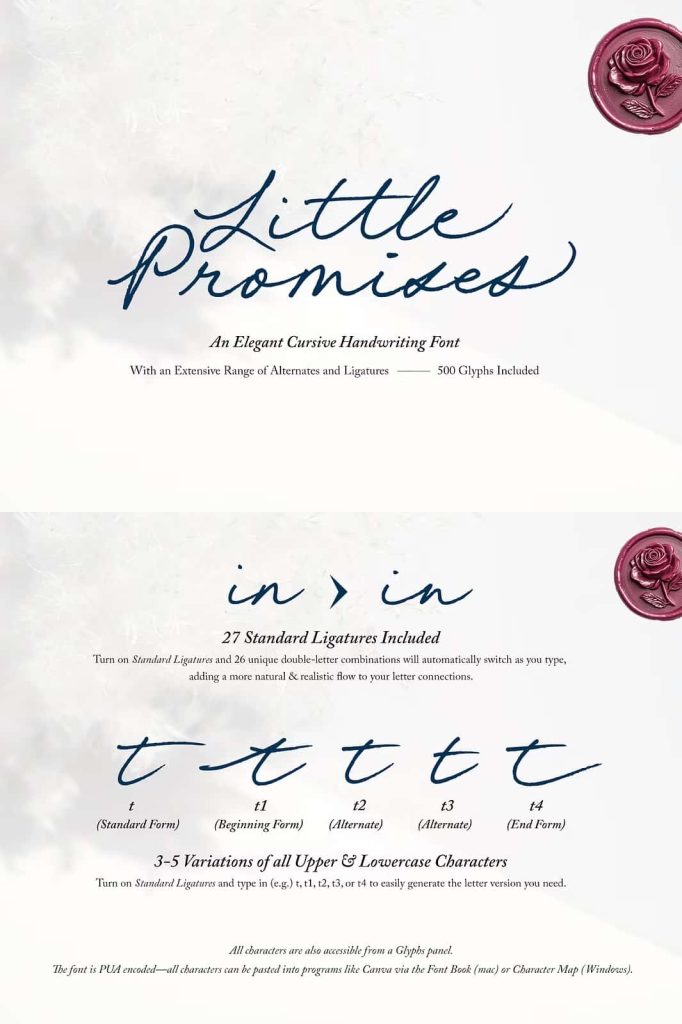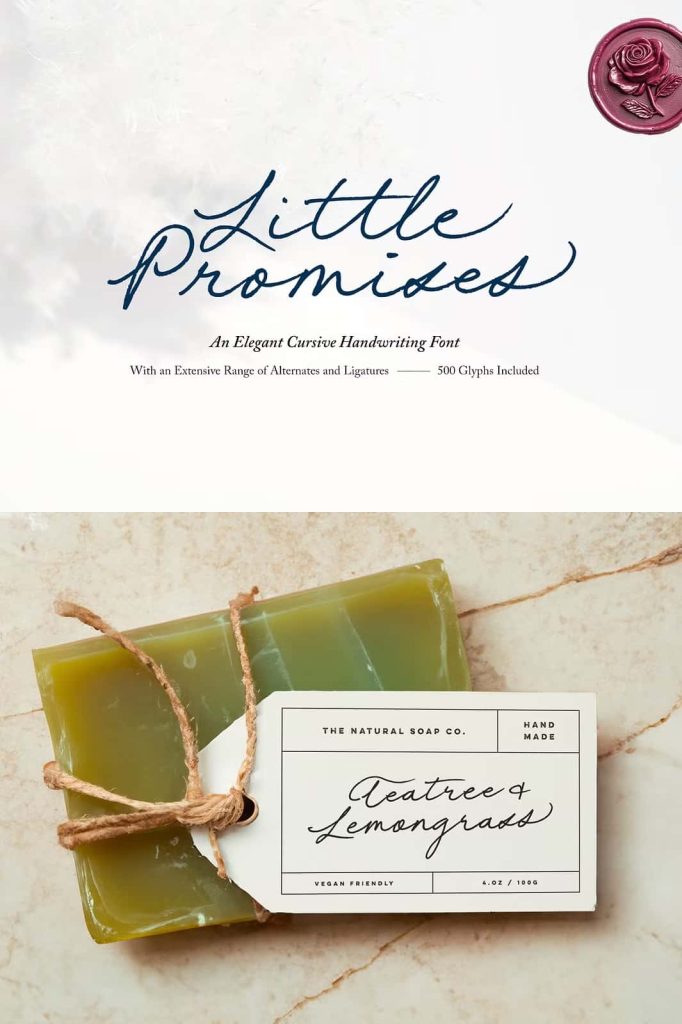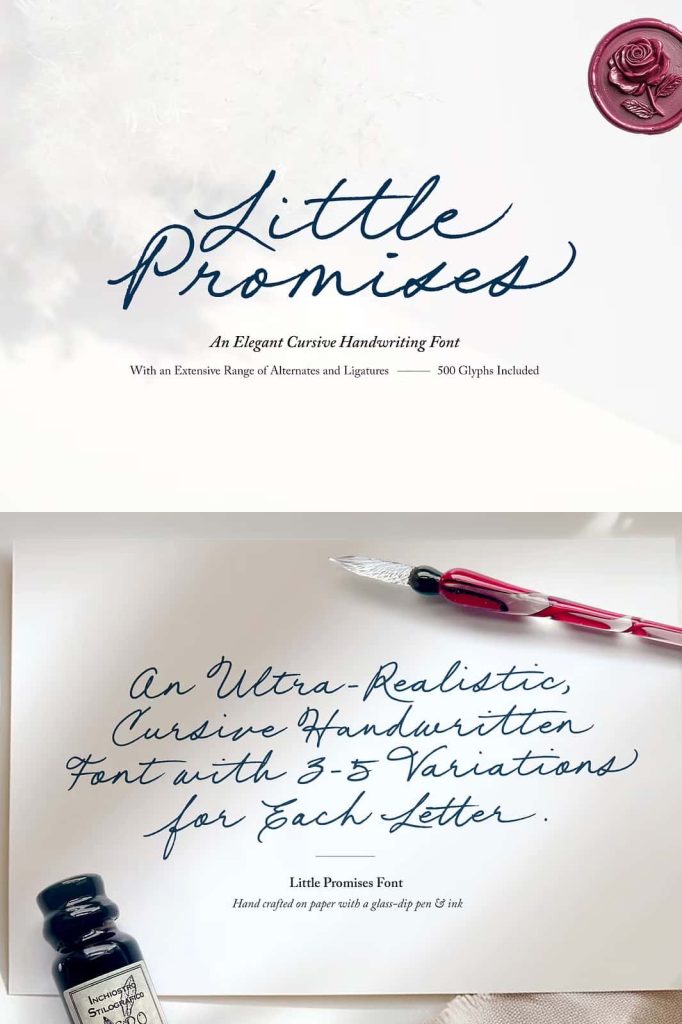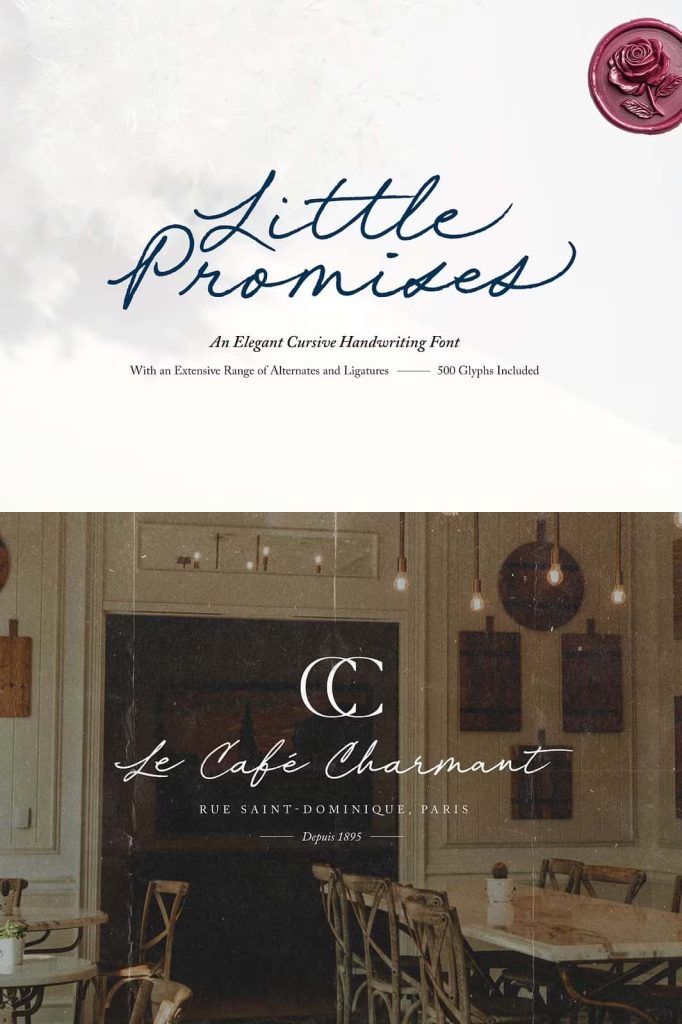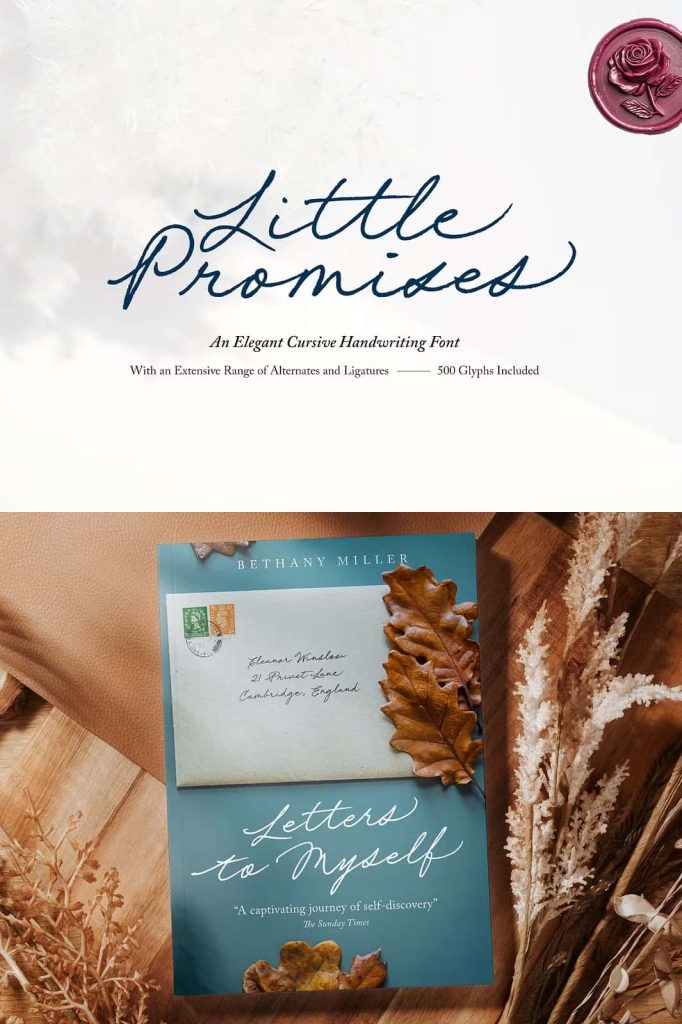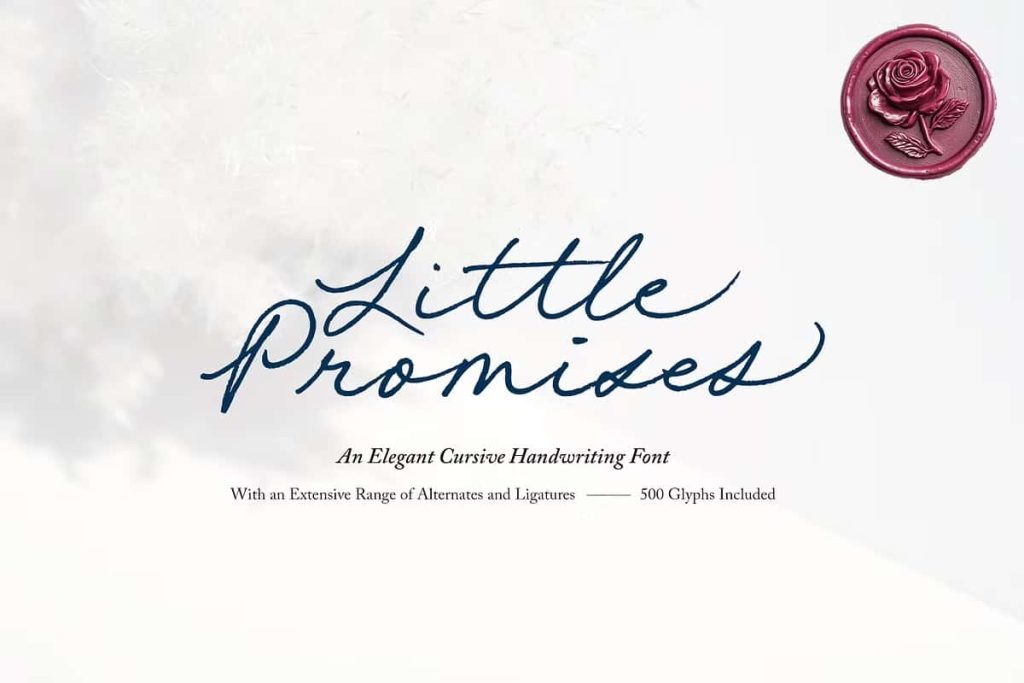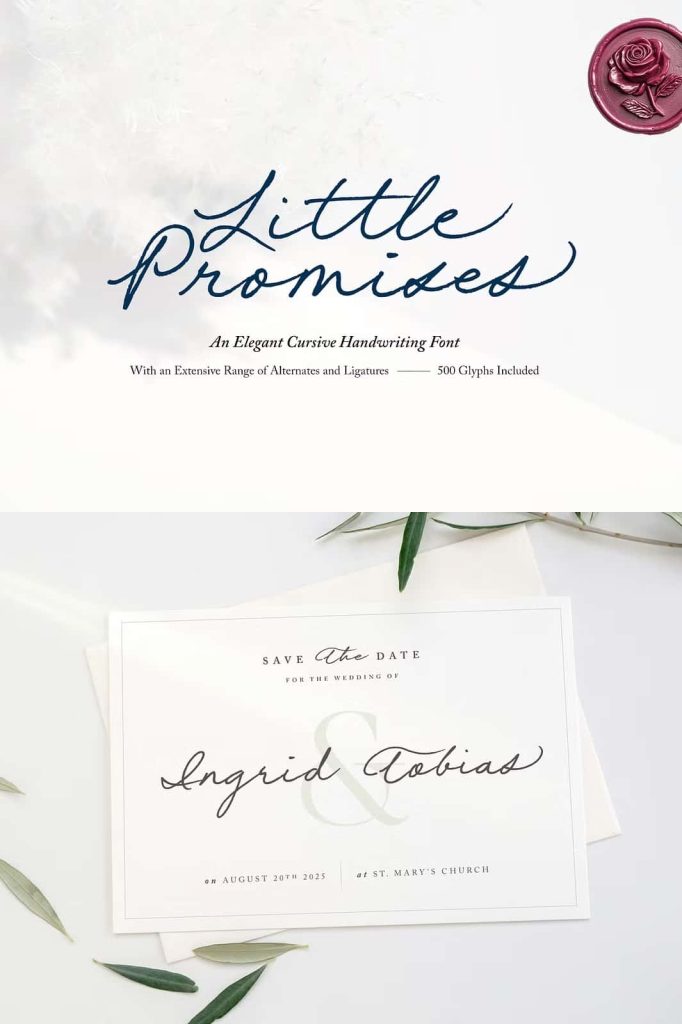
Little Promises is an elegant cursive handwriting font with a charming authenticity. This natural, free flowing script was hand-crafted with a glass dip-pen and ink